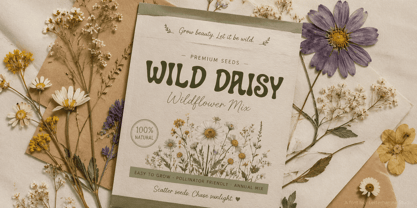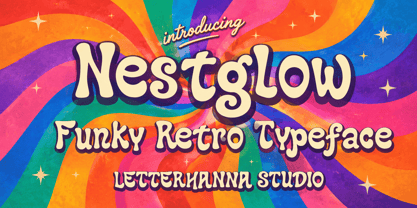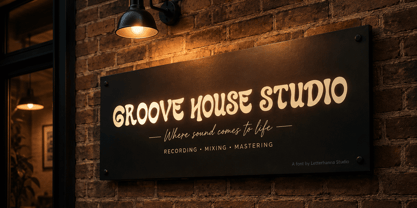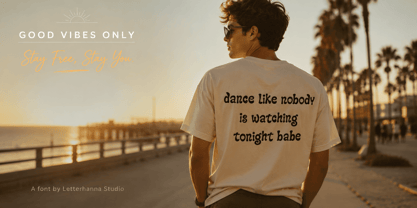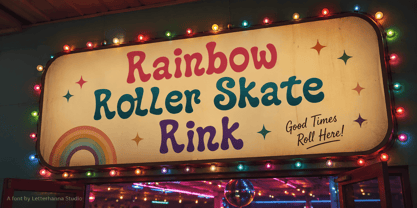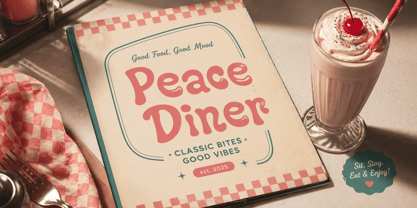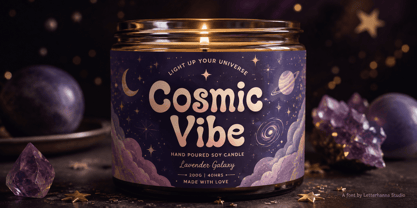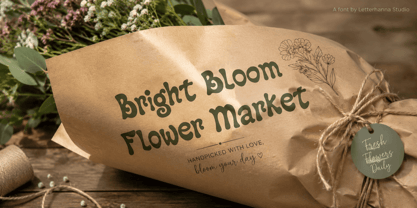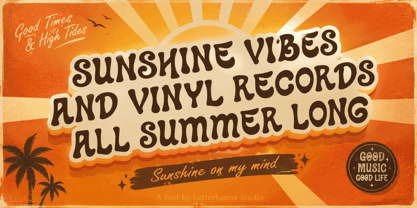
Nestglow
by Letterhanna Studio
The Nestglow Font Family was designed by Rinaldo Hasibuan and published by Letterhanna Studio. Nestglow contains 1 styles. More about this family
Every design trend has a soundtrack, and for this typeface, it's unmistakably funk and soul vinyl spinning on a turntable somewhere in 1973. This isn't a font that whispers — it grooves, bounces, and radiates personality from every curve. If you've been on the hunt for a retro wave font that instantly transports viewers to an era of bold colors and free-spirited creativity, you've found your match.
At first glance, what stands out is the confidence in every stroke. The letterforms are thick and rounded, almost sculptural, with playful curled details at the terminals of letters like A, K, and R. This isn't subtle design — it's a retro bold font built to command attention on posters, packaging, and headlines alike. Yet despite its boldness, there's nothing stiff about it. The single-story lowercase "a," the relaxed baseline, and the slightly imperfect curves give it a hand-lettered charm that feels warm and human.
That warmth is the secret behind why funky font styles like this one continue to resonate so strongly with modern audiences. In a digital landscape saturated with clean, minimal sans-serifs, this typeface stands out by embracing personality over perfection. It doesn't try to look "correct" — it tries to look alive. And that authenticity is exactly what today's brands crave when they want to feel more human and less corporate.
Let's rewind for a moment. Imagine flipping through a stack of old vinyl records at a thrift store — the kind with hand-illustrated covers, swirling typography, and colors that seem to pulse off the sleeve. That visual language wasn't created by algorithms or trend reports; it came from artists experimenting with ink, brushes, and imagination. This is the same spirit behind classic psychedelia font design — expressive, unpredictable, and deeply tied to a specific cultural moment. This typeface captures that same rebellious creativity while remaining clean and functional for modern digital and print use.
What truly sets this font apart is its range. It's punchy enough to headline a music festival poster, yet friendly enough to sit on a boutique candle label or a birthday invitation. Whether you're branding a retro-themed café, designing merchandise for a vintage-inspired clothing line, or simply want to inject some nostalgic charm into your next creative project, this typeface flexes to fit the mood without losing its distinct groovy identity.
There's a reason retro aesthetics keep resurfacing in design — nostalgia sells, but more importantly, it connects. People respond emotionally to design that feels warm, tactile, and reminiscent of simpler, more expressive times. A well-designed retro wave font taps directly into that emotional response, making your brand or project instantly more memorable and relatable.
So if your next design needs a little more soul, a little more swagger, and a whole lot of retro charm, this typeface is ready to deliver. It's bold without being harsh, playful without being childish, and nostalgic without feeling dated.
Designers: Rinaldo Hasibuan
Foundry: Letterhanna Studio